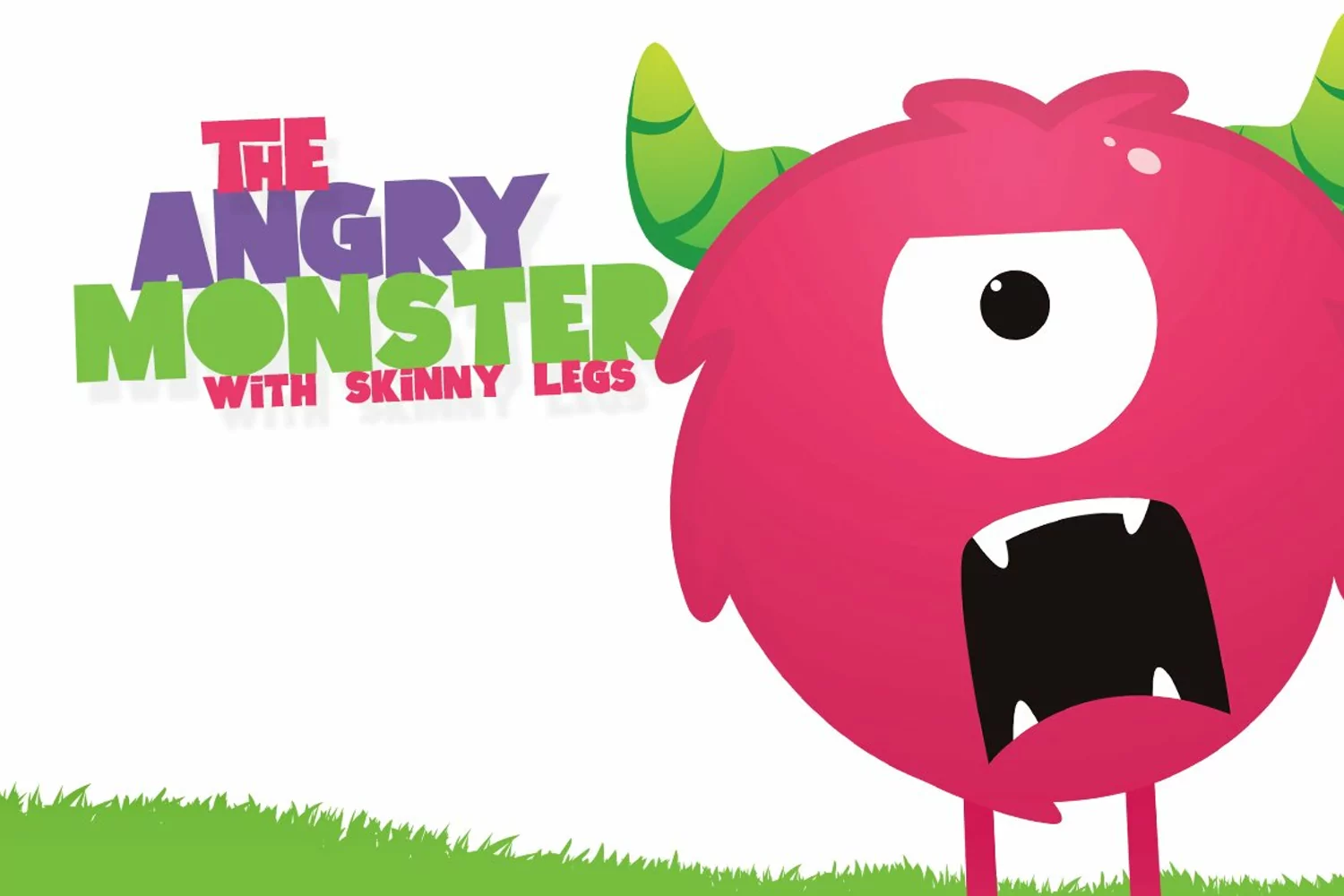
Introducing our brand new retro style font "The Lied". The Lied is a fantastic new font that can be used for kids designs or even made edgier for a bold, strong look. The extra glyphs that combine the smaller and larger letters add a unique touch to this font and can be useful in mixing up the look of similar words. Enjoy playing around with the combos!Try typing out some of the following characters in the preview box below ( ) - + = % { } [ ]What's Included: